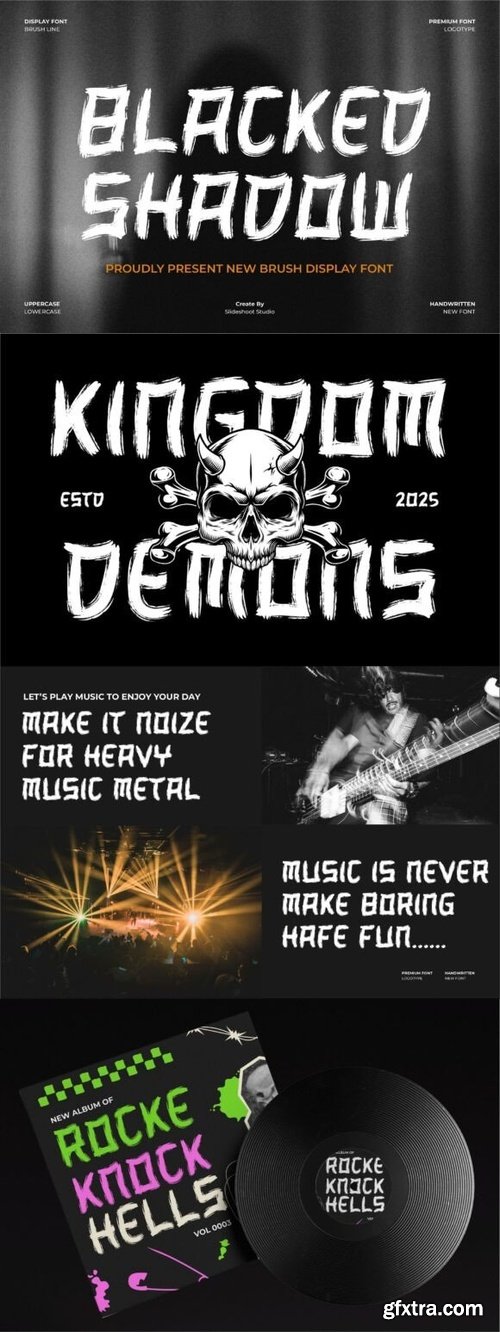
Blacked Shadow Font
- Blacked Shadow is a bold and edgy brush display font with striking hand-drawn strokes. Its textured, raw aesthetic is ideal for creating impactful headlines, dynamic posters, and rebellious designs. Whether for grunge projects or modern artwork, this font brings a dramatic flair.